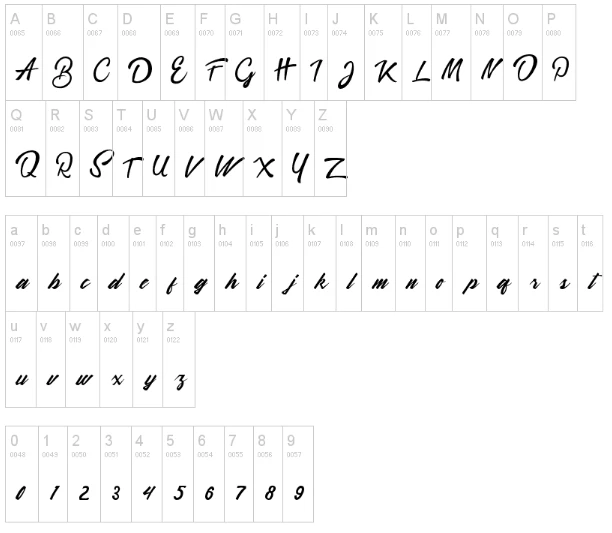
Hello, designer! Quitman, a Stunning Script and Calligraphy font, is now available. This is an excellent choice if you’re designing a logo or any other project and want to use the greatest scripts. Let me introduce you to Quitman. Craft Supply Co. created and shared it. The Font improves and completes your text creations. Designers will appreciate the Font.
Another known fact about the font is that it has bold strokes, which make up this calligraphy script font. These strokes also appear to be italicized. As a result, it will draw attention to your designs and make them more appealing. You can use the Font on regular text because it has a Beautiful bold stroke, and it’s frequently used to highlight keywords that are important to the text’s content. The beautiful script and Calligraphy font come in two formats: TTF and OTF. As a calligraphic typeface, it can be used to make exquisite handwriting.
Quitman is appropriate for logos, greeting cards, quotations, posters, branding, name cards, stationery, blog headers, art quotes, typography art, modern envelope lettering, and book design. If you manage an online t-shirt store, you can also use this Font for your pictures or cover photos because the type looks excellent on t-shirts.